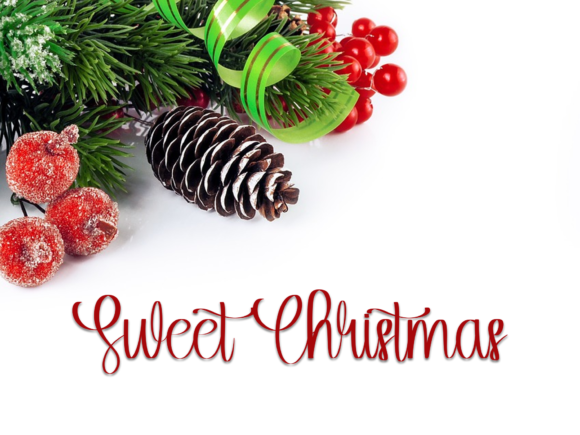
Christmas is a handwritten font that is made with great precision in order to produce the maximum effect. It can be used for writing a wide variety of products according to their individual needs.